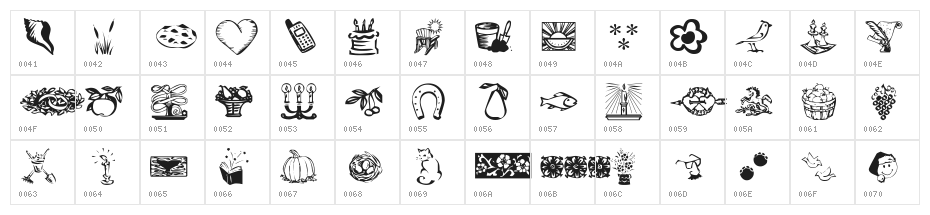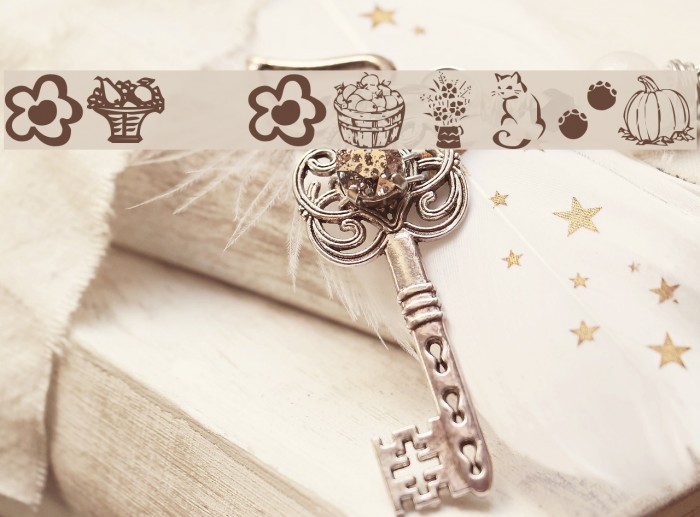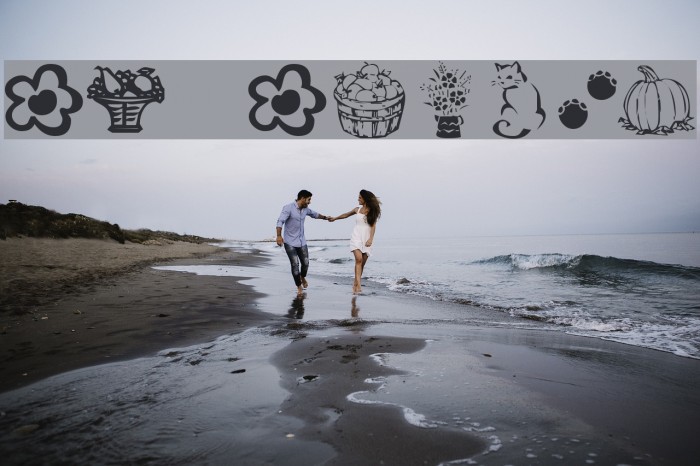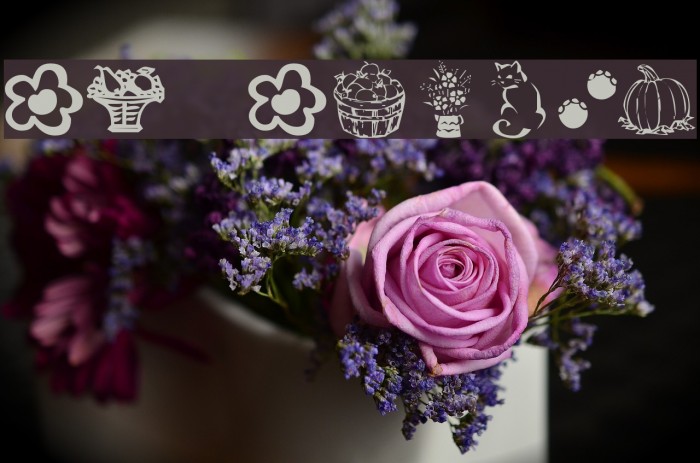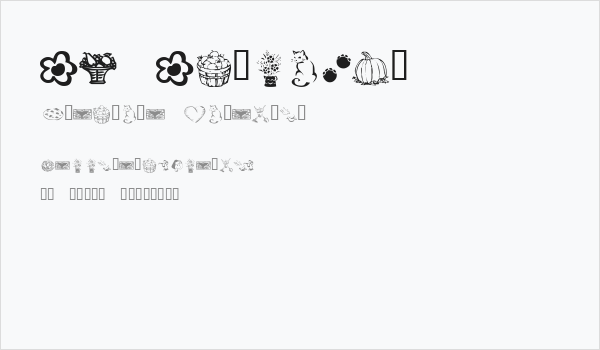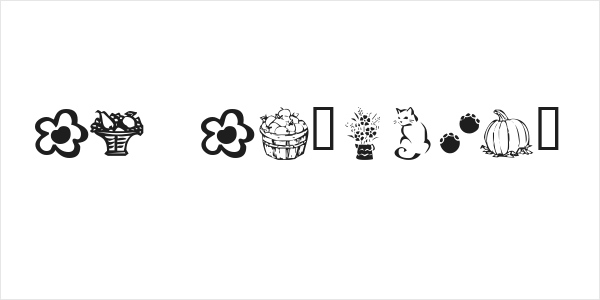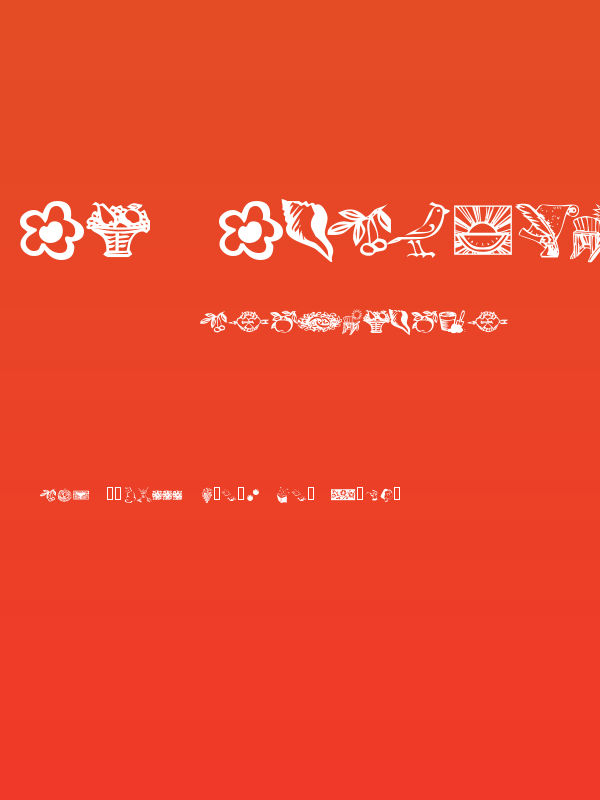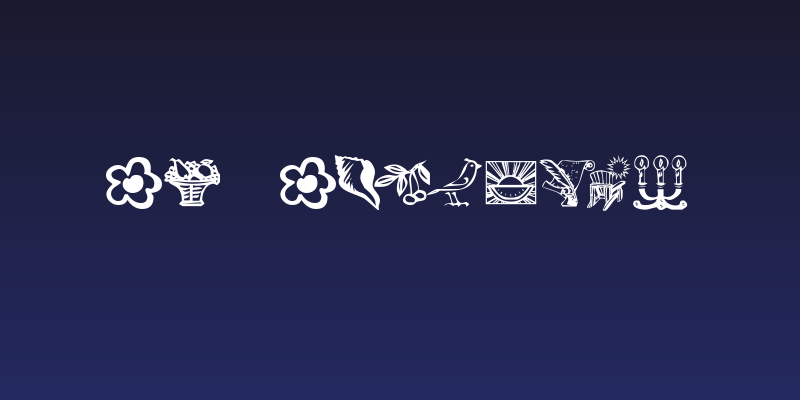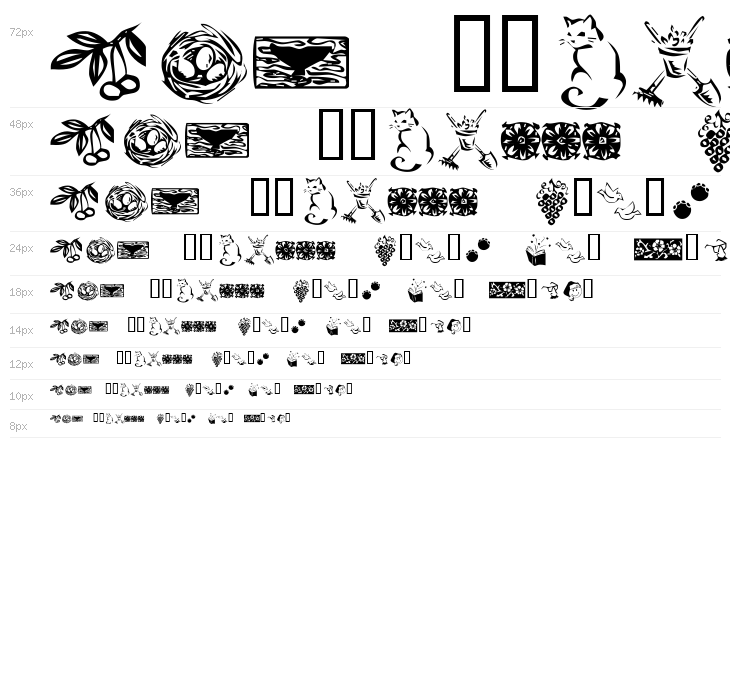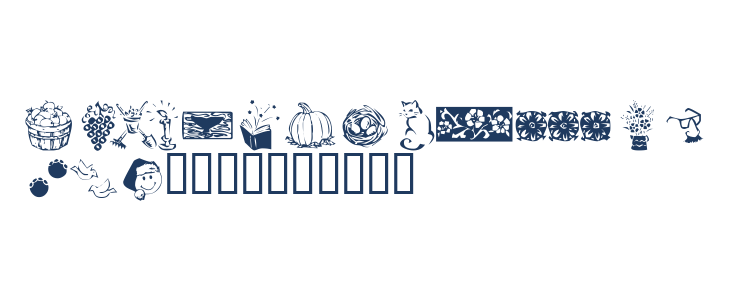
KR Katlings Font
KR Katlings Description
A decorative dingbat font featuring a variety of hand-drawn illustrations such as food, animals, objects, and seasonal motifs. Each character is replaced by a unique pictogram, offering a playful and whimsical style.
| Overall Style | Decorative, Whimsical, Playful |
| Use Case | Decorative elements, Borders, Craft projects |
| Proposed Projects | Scrapbooking, greeting cards, decorative borders, children's projects, event flyers. |